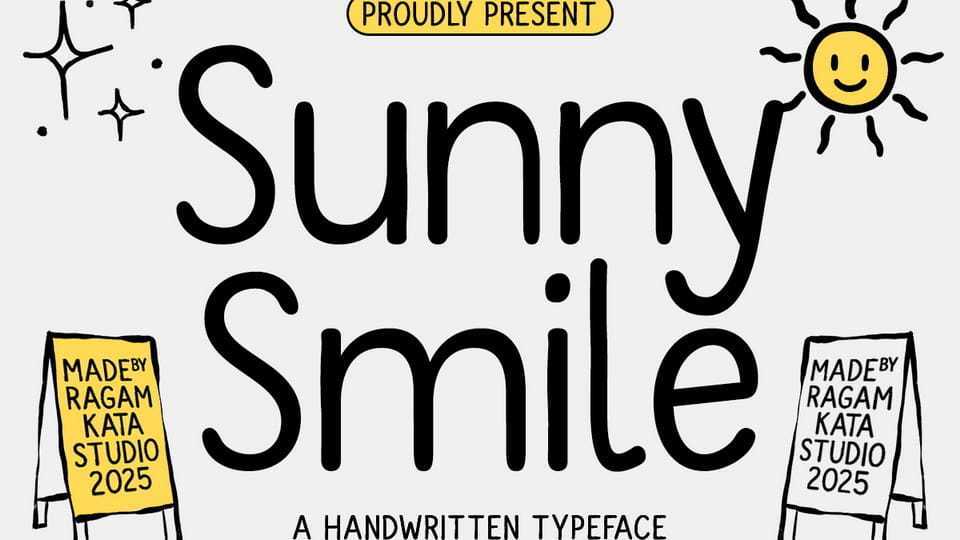
Download Sunny Smile font, a playful handwritten typeface that brings cheerful, fun, and joyful energy to your designs. Its rounded and friendly letters create a cute and organic look that feels modern yet casual.